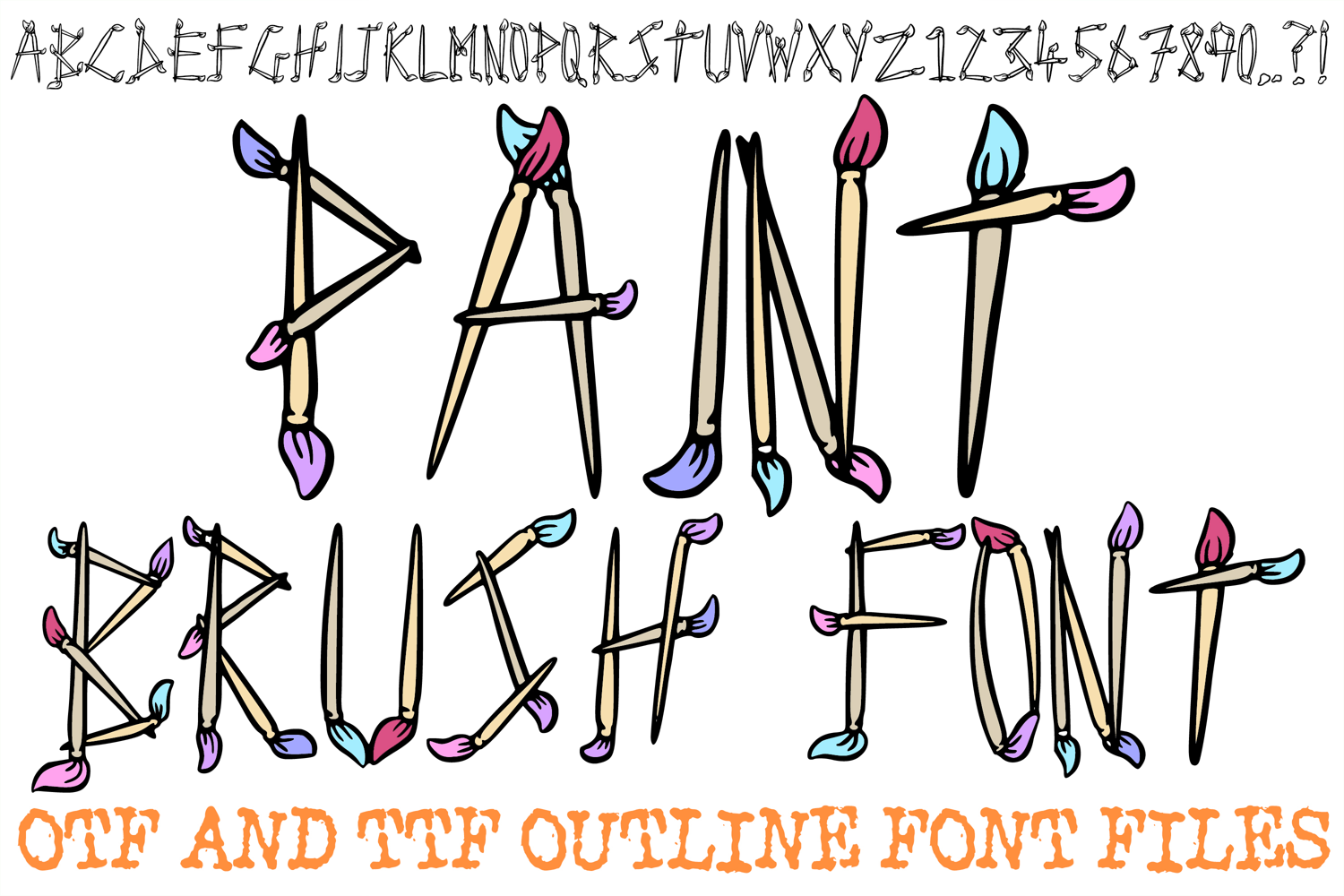
Paint Brush Font Art Creative Lettering ABC OTF Type Hand Drawn by Squeeb Creative
Paint Brush Font Art Creative Lettering ABC OTF Type
Unleash your inner artist with the Paint Brush Font! This highly creative display typeface is constr…